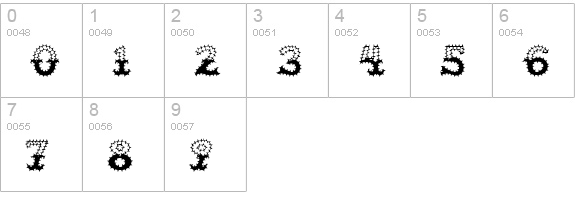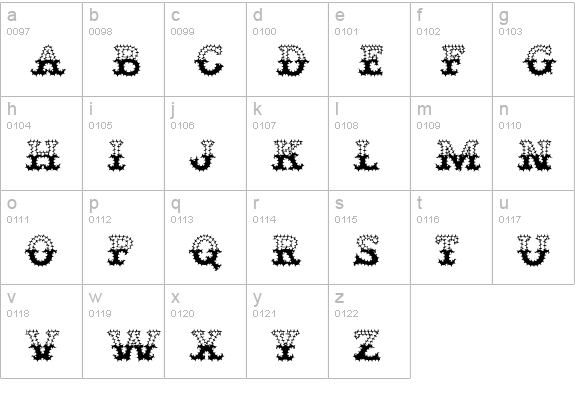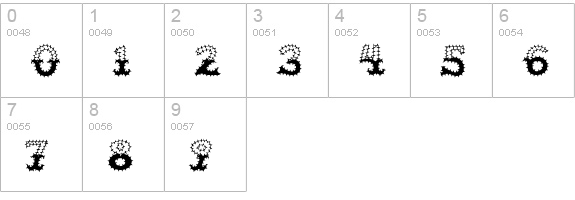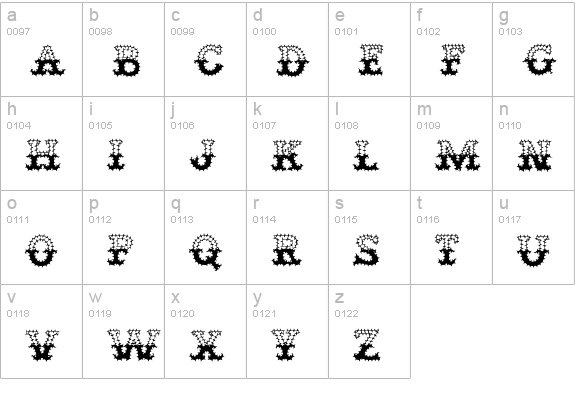
CourtJesterFrizzy Font Details
CourtJesterFrizzy font is a whimsical and playful typeface that adds a touch of fun to any design project. With its quirky, curly letterforms and irregular shapes, this font exudes a sense of joviality and lightheartedness. The unique frizzy details give it a distinctive character that sets it apart from other fonts. Best of all, CourtJesterFrizzy font is available for free download at FontsMarket.com. Whether you're working on a birthday invitation, a children's book, or any other creative endeavor that calls for a touch of whimsy, CourtJesterFrizzy font is the perfect choice. Download it today and let your imagination run wild with this delightful and free-spirited typeface.